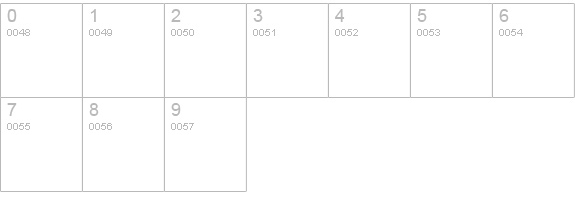
In this article Overview A design based on Monotype th Century, which was drawn by Sol Hess between 1936 and 1947 Century Gothic maintains the basic design of th Century but has an enlarged 'x' height and has been modified to ensure satisfactory output from modern. Download free Century Gothic font, Century Gothicttf GOTHICITTFGOTHICBTTFgothicbttfCenturyGothicttfGOTHICBITTFGOTHICTTFgothicittfGOTHICB0TTF. Century Gothic Free TrueType Font Download ufontscom Download Century GothicTrueType font Download 151,703 Free fonts at ufontscom Century Gothic™ font family Linotypecom The Century Gothic font family is useful for headlines and general display work and for small quantities of text, particularly in advertising.
Download 4 free fonts looks close or similar to popular Century Gothic font. I'm sorry to have bothered you personally i thought i had done my research which is why i posted my question i did search the groups for true type bold and various other versions like true type fuzzy, etc but did not see any. Century gothic font download January 8, Gothic influences usually refer to architecture, art, and sculptures that were popular during the Middle Ages in Europe Nowadays, the term ‘gothic’ typically refers to anything that’s dark, mysterious, or edgy The word itself though, was coined by Italian writer,.
Century Gothic Free TrueType Font Download ufontscom Download Century GothicTrueType font Download 151,703 Free fonts at ufontscom Century Gothic™ font family Linotypecom The Century Gothic font family is useful for headlines and general display work and for small quantities of text, particularly in advertising. Century gothic font download January 8, Gothic influences usually refer to architecture, art, and sculptures that were popular during the Middle Ages in Europe Nowadays, the term ‘gothic’ typically refers to anything that’s dark, mysterious, or edgy The word itself though, was coined by Italian writer,. Version Formats TTF, OTF File Type Font, Software Compatible Windows, Mac Stock ∞.
Century Gothic W1G Variable Regular Font What Font Is Download Century Gothic W1G Variable Regular font WeezerFont, Constructive Buddy, Century Goth. Century Gothic is often a sansserif typeface during the geometric style, unveiled by Monotype Imaging in 1991 It truly is strongly affected from the font Futura, nevertheless with a higher xheight, and its structure background also derives from two separate typefaces meant as Futura competitors Version Century Gothic Formats TTF, OTF Stock ∞ Total Files. Fonts have been added to your font request has been added to " " request has been added to " " list VIEW HERE Century Gothic™ ExtraBold Italic Add has been added to your font request fonts have been added to your font request.
Century Gothic maintains the basic design of th Century but has an enlarged 'x' height and has been modified to ensure satisfactory output from modern digital systems The design is influenced by the geometric style sans serif faces which were popular during the 19's and 30's. Download high quality free fonts for Windows, Mac and Linux Browse fonts by category, license type, most popular or new releases. Download free Century Gothic Regular font by bgdesign group Kalhorttf size 223Kb Download TTF free for windows font.
Century Gothic Normal Free Download post reset Century Packages Century Style Regular Version 110 Company Monotype Typography, Inc OnlineWebFontsCOM is Internet most popular font online download website,offers more than 8,000,000 desktop and Web font products for you to preview and download Resource Links Submit Fonts. A stateoftheart serif font household with topnotch legibility This can be a grand old romanform serif that’s principally exclusive as a show font used allcaps for headlines, even though works stylishly as a sentencecase textual content face at moderately bigger sizes. The font family is Century Gothic And subfamily is Bold About the font Century Gothic Bold is free for personal use only Please, talk with the author for commercial use or for any support You can use the Century Gothic Bold to create interesting designs, covers, shop and store name and logos.